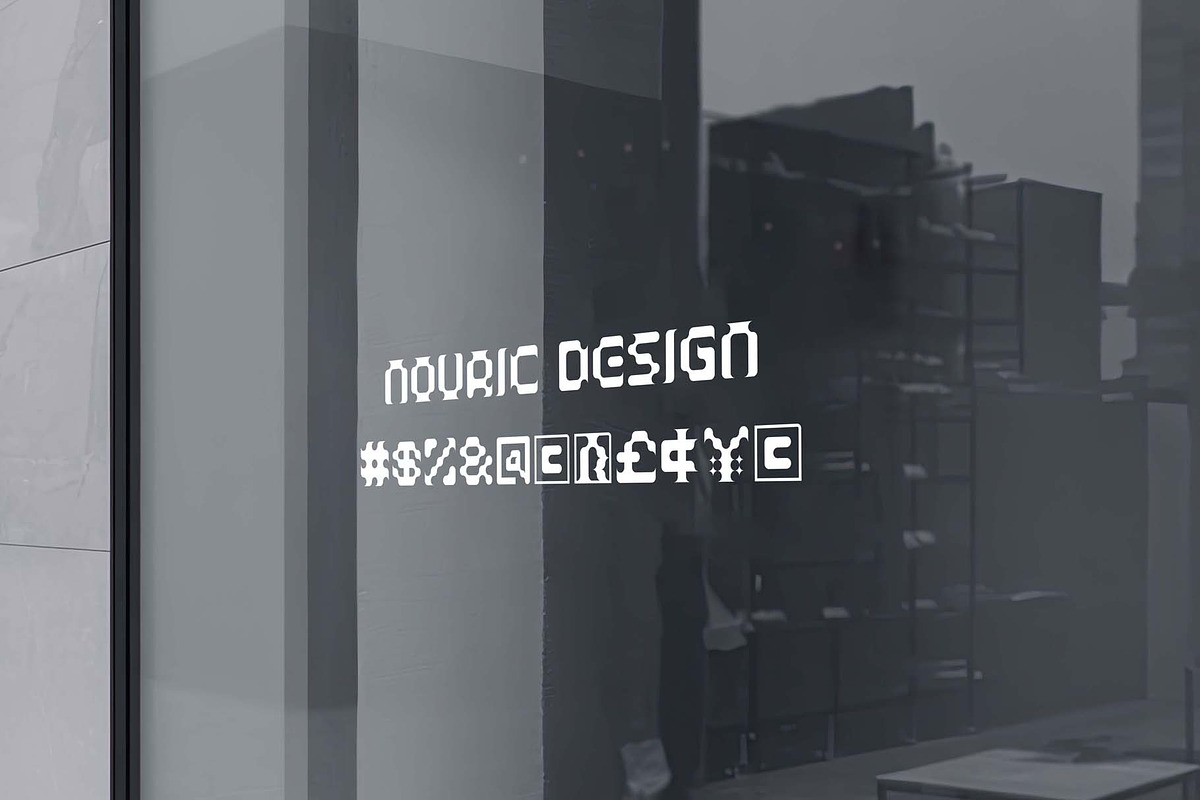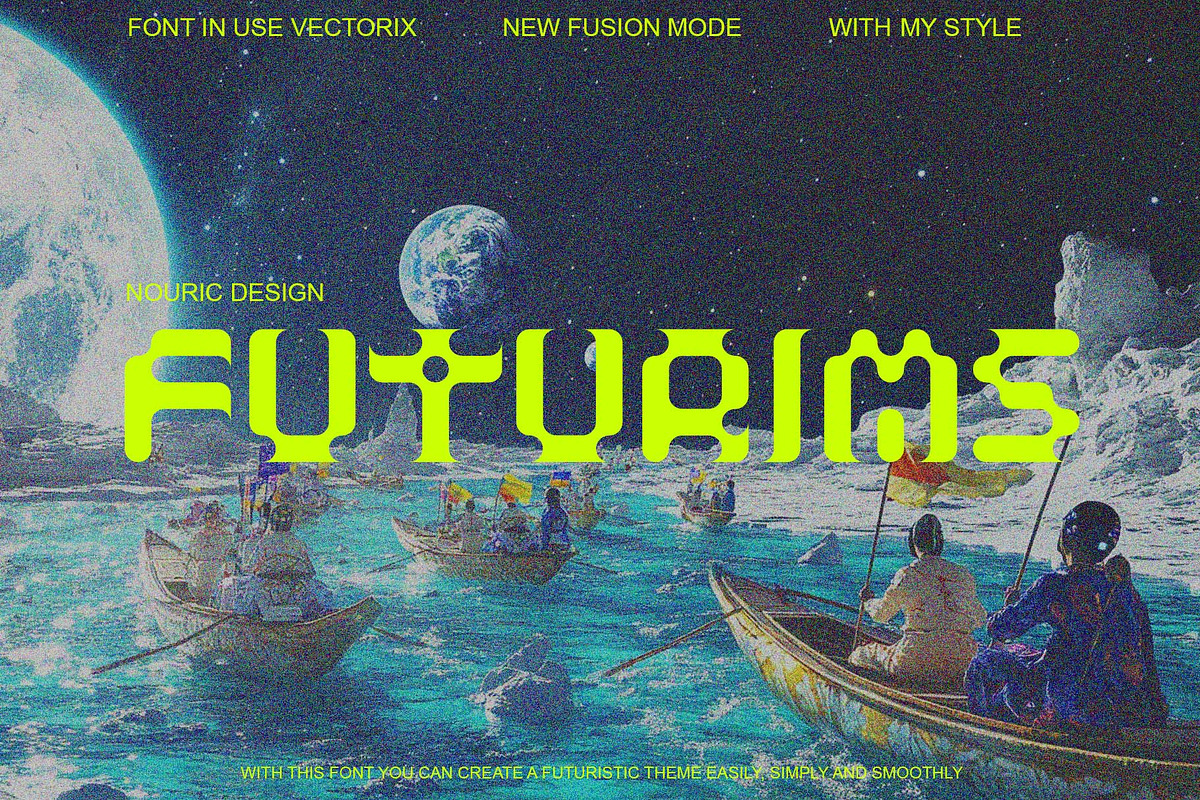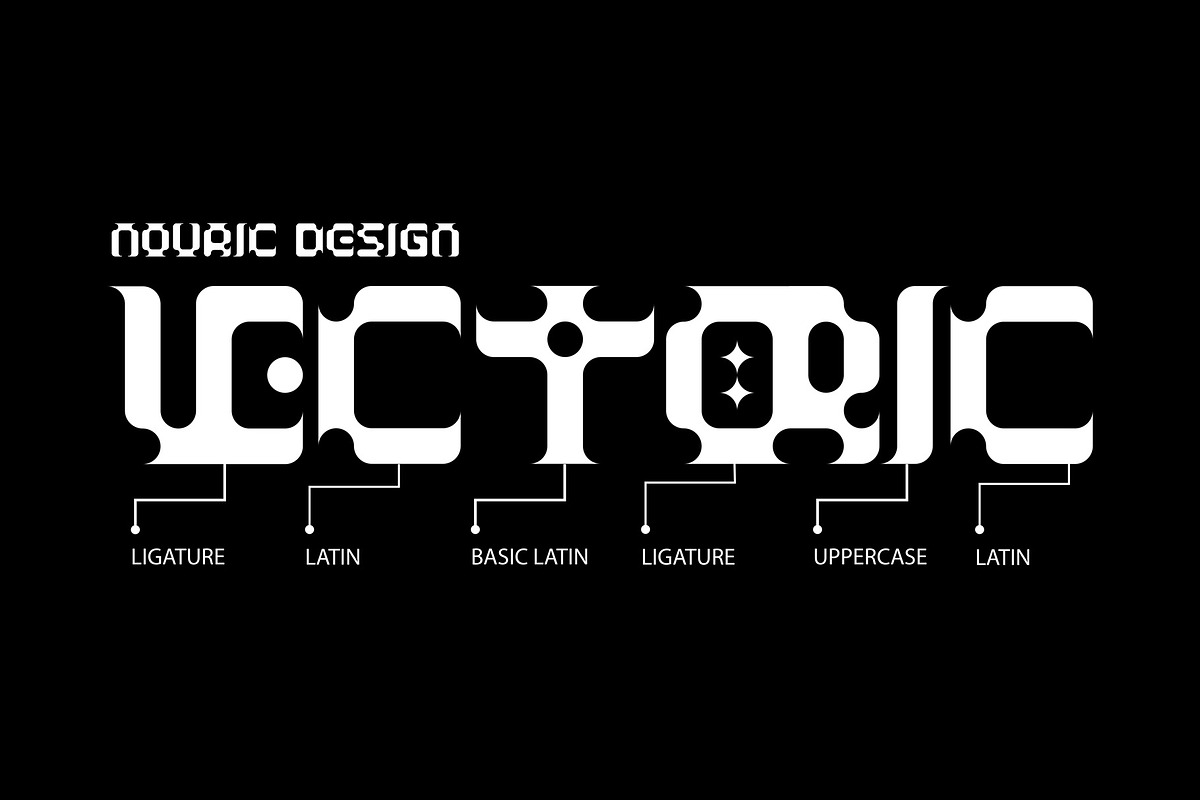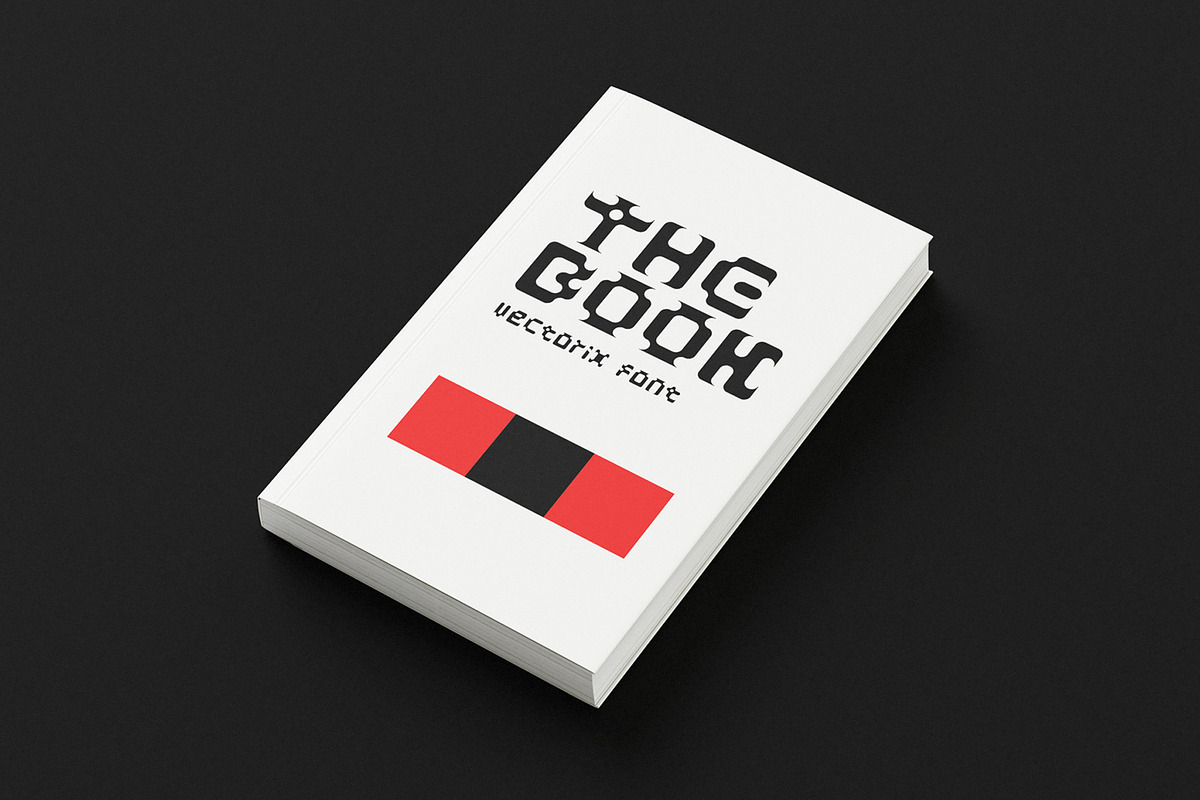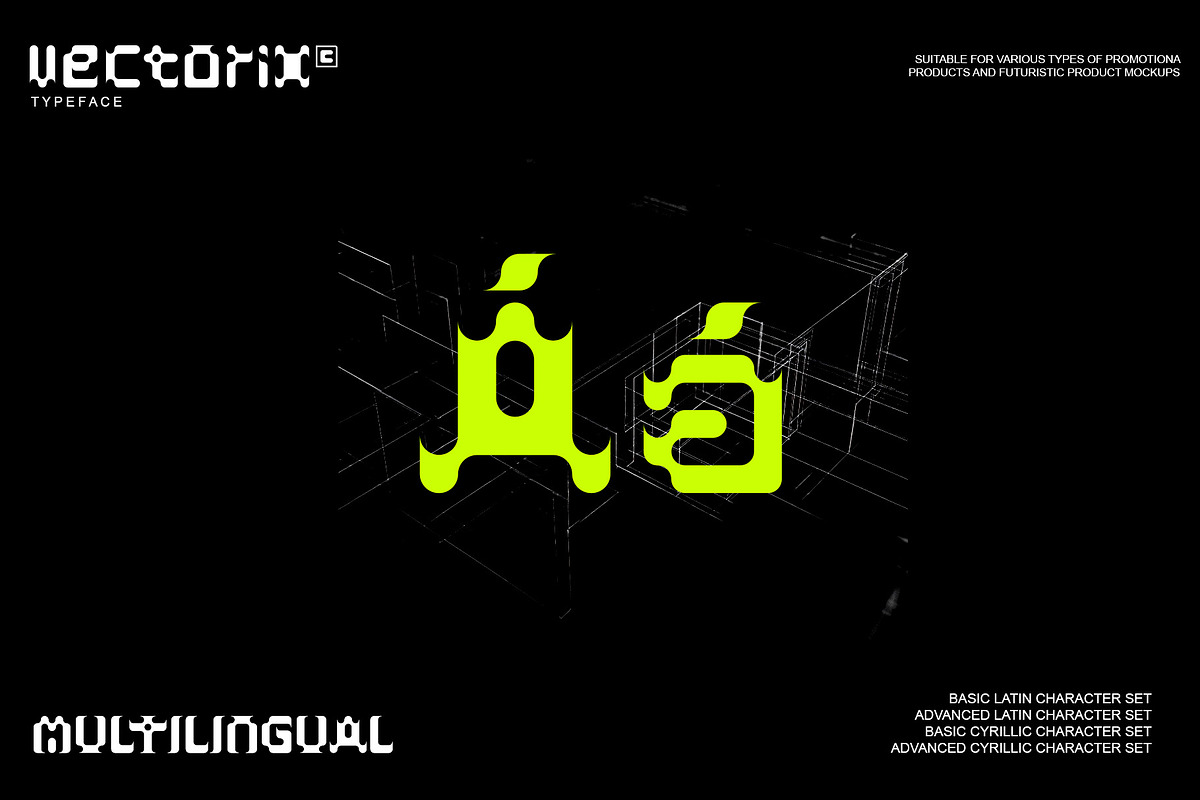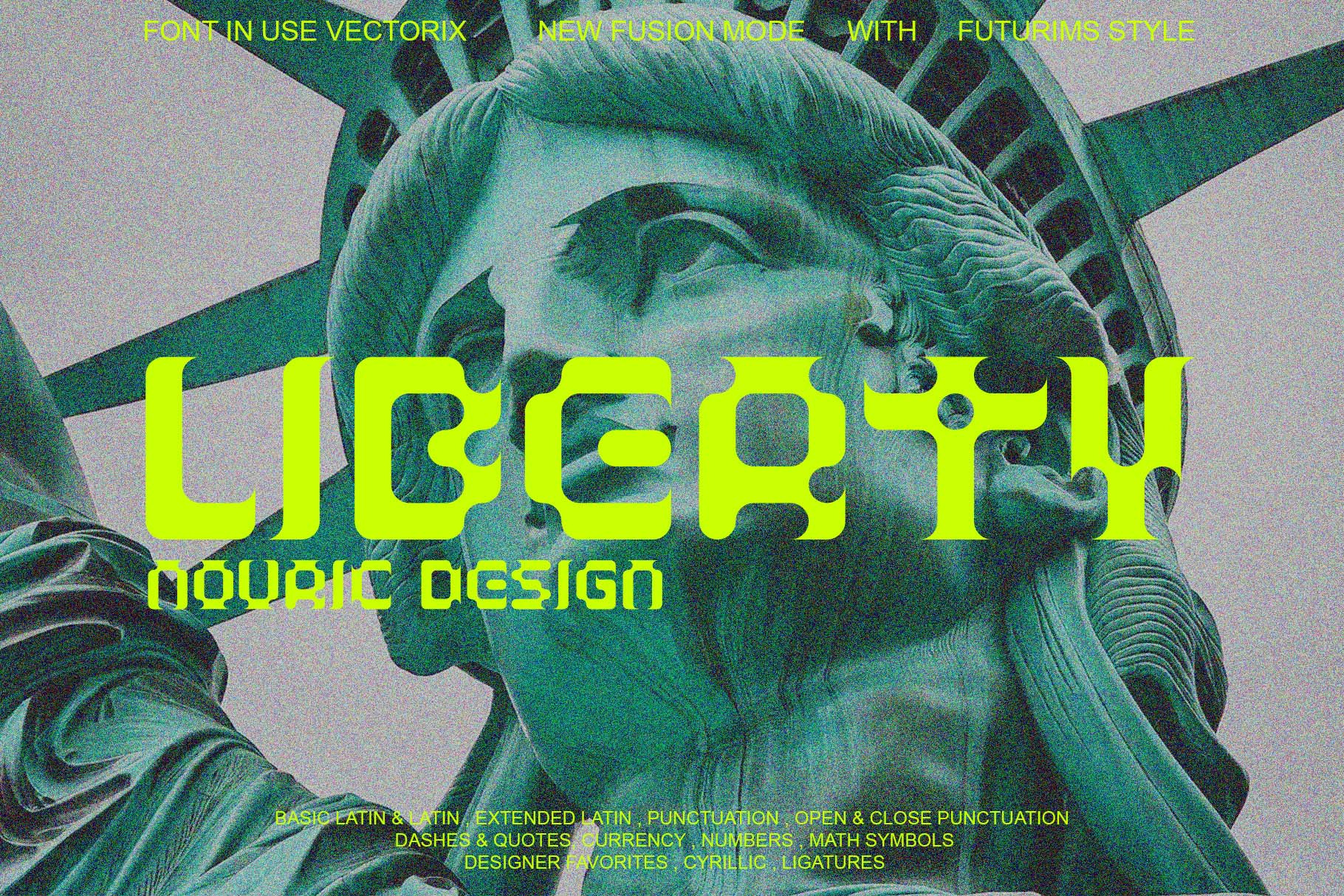
ND Vectorix Futurism Typeface
Introducing VECTORIX — a sleek, cutting-edge futuristic font designed for the modern world. Its sharp angles, bold lines, and smooth curves create a dynamic look that feels both high-tech and visionary. Perfect for tech brands, sci-fi projects, or any design that needs a touch of innovation. Elevate your work with VECTORIX, the font of tomorrow!
- Basic Latin character set
- Advanced Latin character set
- Basic Cyrillic character set
- Advanced Cyrillic character set
- Open & Close Punctuation
- Dashes & Quotes
- Currency
- Math Symbols
- Designer Favorites
- Cyrillic